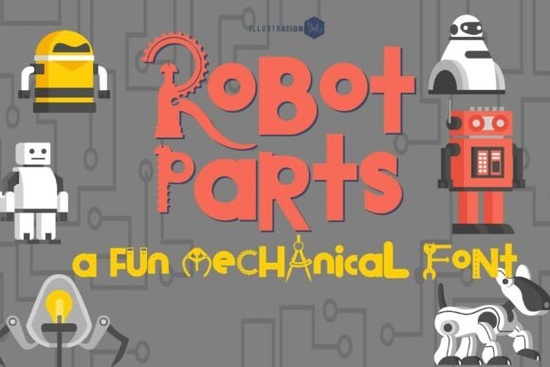
If you're looking for a display font that brings mechanical charm and STEM-friendly energy to your designs, the Robot Parts Font fits right in. It’s not just another geometric sans-serif it’s built from visual metaphors: gears slot into letter junctions, bolt heads cap terminals, and wrench ends twist into crossbars. That makes it especially useful for youth robotics clubs, science fair banners, custom team jerseys, or classroom posters where clarity and character matter equally.
What kind of projects work best with Robot Parts?
This font shines where technical themes meet playful energy. Think event headers for coding camps, vinyl decals for 3D-printed robot chassis, or heat-transfer designs for STEM summer program T-shirts. Because each glyph carries structural detail without sacrificing legibility at medium to large sizes, it holds up well on fabric, signage, and social media thumbnails especially when paired with clean backgrounds or subtle grid overlays.
It’s not ideal for body text or small labels (like product tags under 16px), but that’s by design. Robot Parts is a display font, meant to anchor attention not blend in. If you’ve used fonts like Spooky Moon Font for Halloween branding or Beachwave Font for coastal merch, you’ll recognize this same intentional personality but swapped for rivets instead of waves.
How does it compare to other display fonts on Creative Fabrica?
Unlike decorative script or handwritten styles, Robot Parts leans into precision and symmetry. Its proportions are balanced for impact, not whimsy. That makes it a natural companion to fonts like Jersey Number Font, especially if you’re designing full kits say, robot competition jerseys with bold team names and numbered player IDs. You can mix them cleanly: Robot Parts for the club name across the chest, Jersey Number Font for the back number.
It also shares a certain “systematic” energy with fonts in The Massive Mega Bundle: Font & Display Fonts, though Robot Parts stands out for its literal hardware vocabulary. And while Chocolate Candies Family Font offers rounded, edible warmth, Robot Parts delivers crisp, buildable confidence perfect for makers who sketch first, solder second.
Who actually uses this font and how?
We’ve seen crafters use Robot Parts for laser-cut robot-themed wall art, cutting gear-shaped letters from acrylic or wood. Print-on-demand sellers apply it to tech-themed mugs and tote bags, often pairing it with simple line-art robots or circuit board patterns. Small businesses running after-school engineering programs use it in Canva templates for weekly newsletters and Google Slides presentations because students instantly recognize the visual language.
One teacher in Ohio told us she prints Robot Parts letters on cardstock, laminates them, and uses them as vocabulary cards: “gear,” “torque,” “circuit,” “sensor.” Another maker layered the font over a blueprint texture and sold the design as a printable poster on Etsy. No fancy software needed just clear intent and a font that supports it.
- Test spacing first: The font includes tight default kerning. For headlines over 72pt, try adding 5–10 units of tracking in your design app to keep letters from feeling cramped.
- Stick to solid colors: Avoid gradients or busy textures behind the text the mechanical details get lost fast.
- Pair wisely: Use a neutral sans-serif (like Montserrat or Open Sans) for supporting text. Avoid other highly stylized fonts unless you’re going for deliberate contrast.
And if you're building a broader collection for school, camp, or shop use, consider browsing Spooky Moon Font for seasonal variety or Beachwave Font for summer program branding it’s helpful to have a few distinct display voices ready, each serving a different mood or audience.